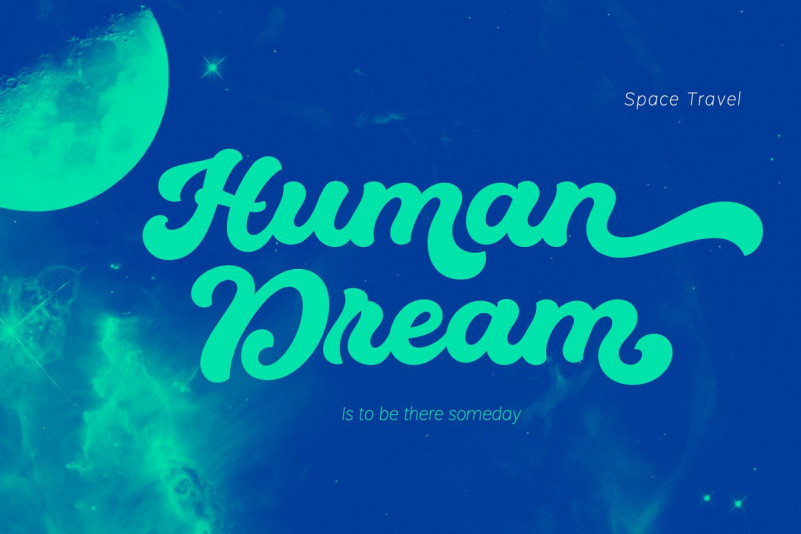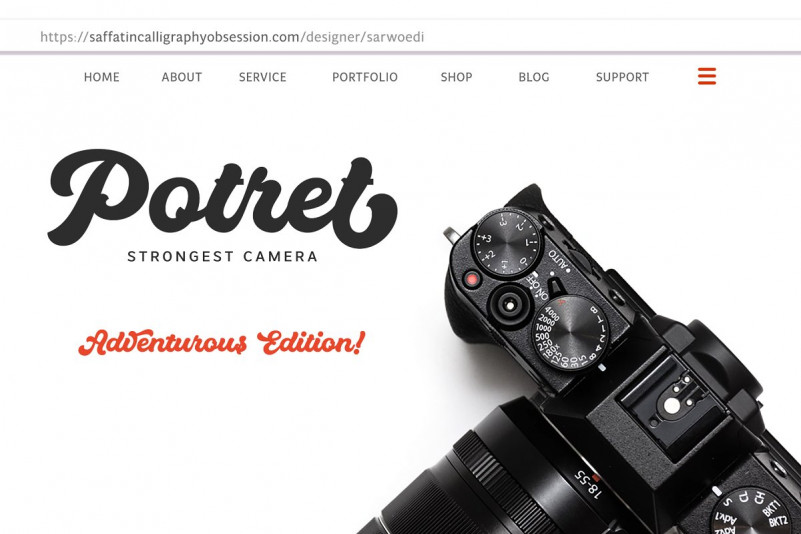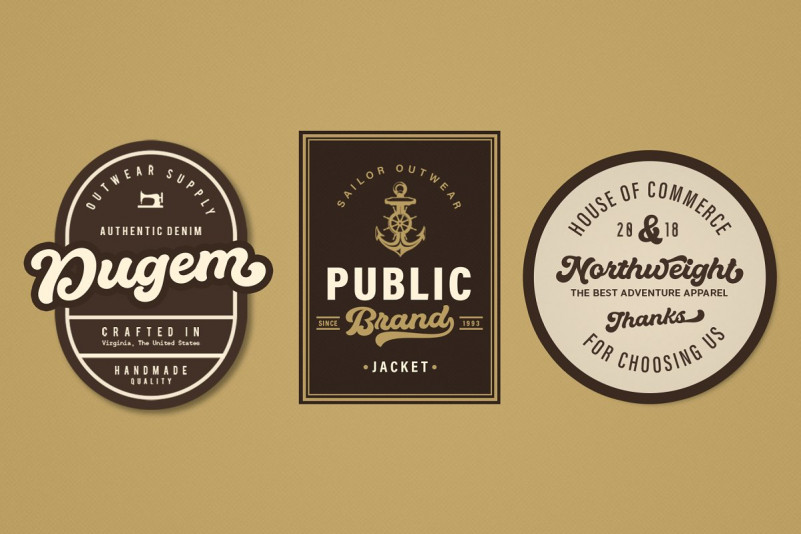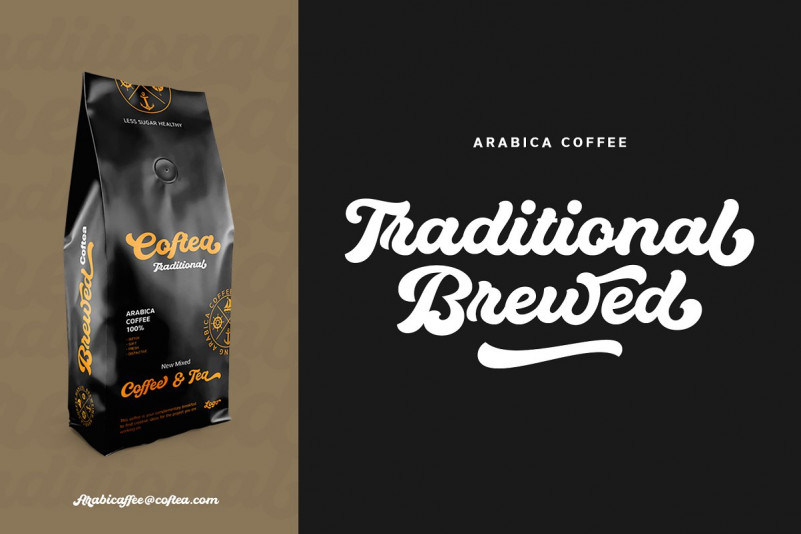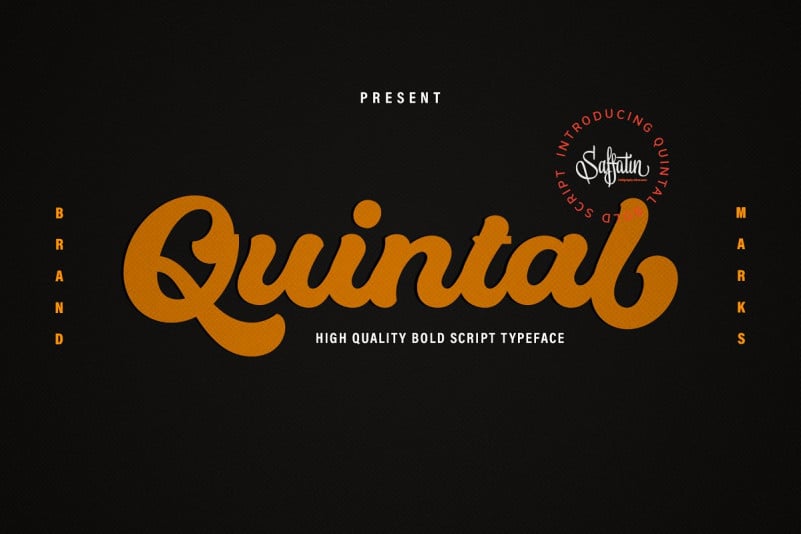
Quintal Bold Script Font
A high quality bold typeface. Give your typography design a striking look. Try to use it in your own business. Introducing Quintal Font. It is designed and shared by Saffatin Co. Quintal Bold Script is of high quality and multipurpose script typeface. This bold typeface has a fun way to create attractive eye-catching content. They are compact and can work well together. You will feel the uniqueness of each letter like seeing a twin child. Some unique ligature and alternative letters are complementary to fulfill your creativity.
Suitable for use on the project such as branding, packaging, poster, headline, brochure, t-shirt, title, embroidery, logotype, advertising, tag labels, product mock-up, etc.